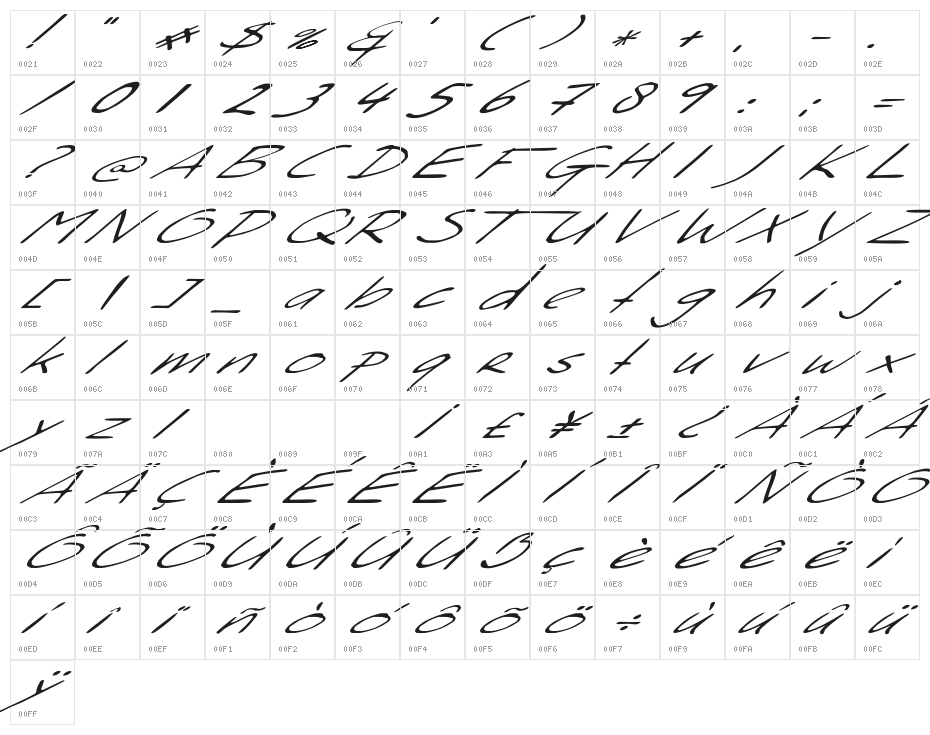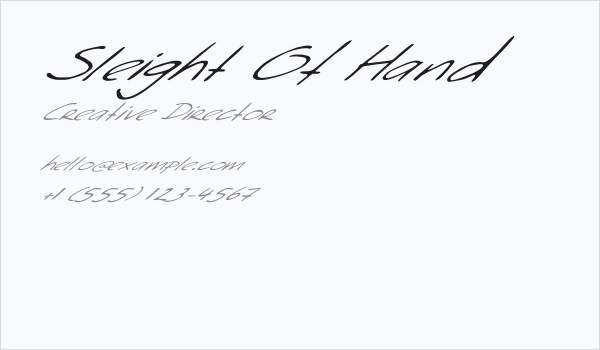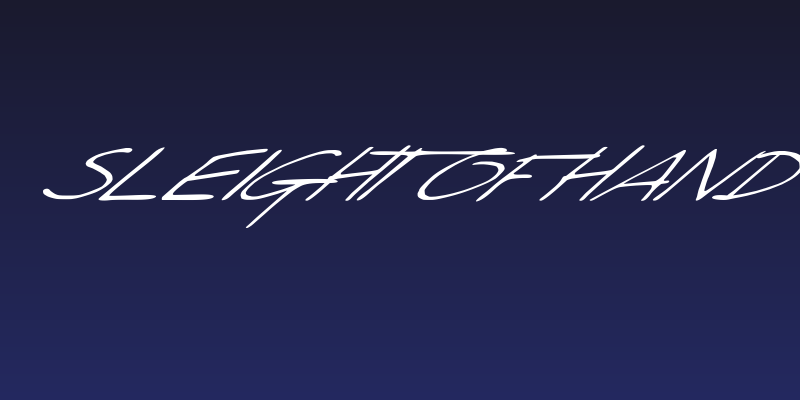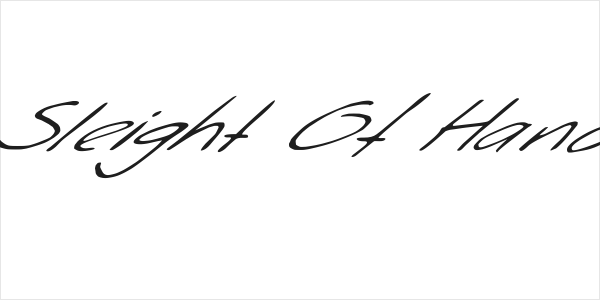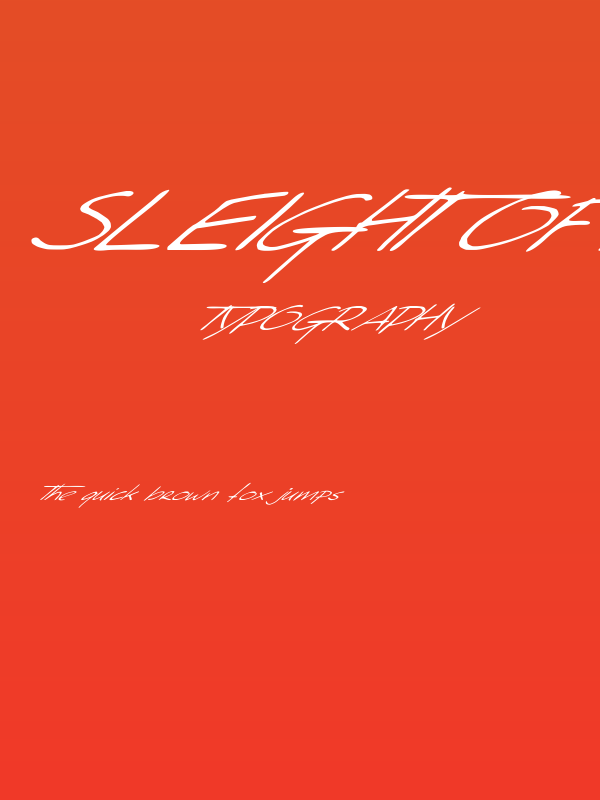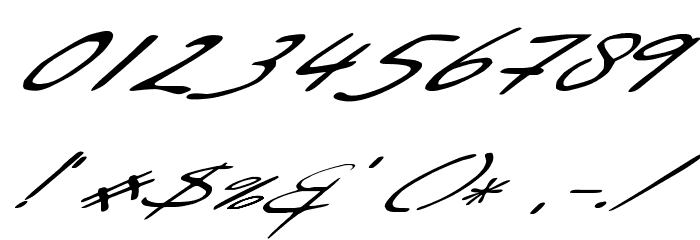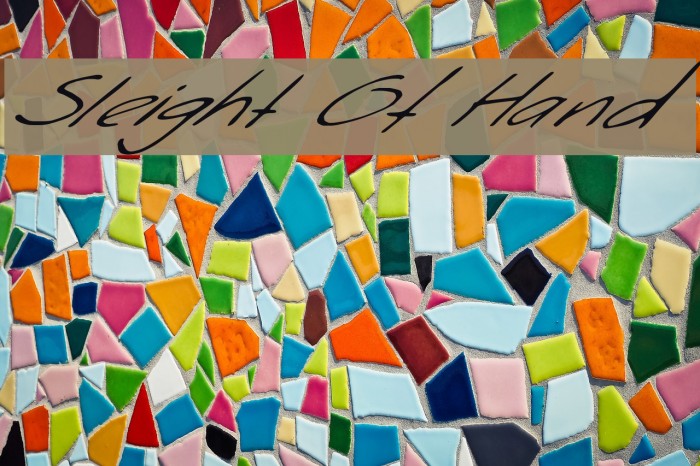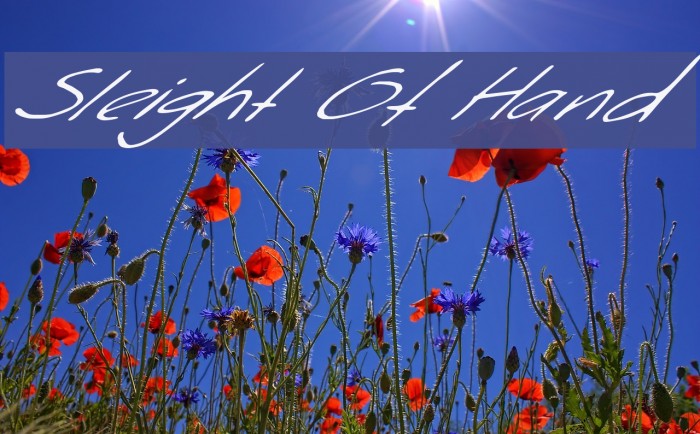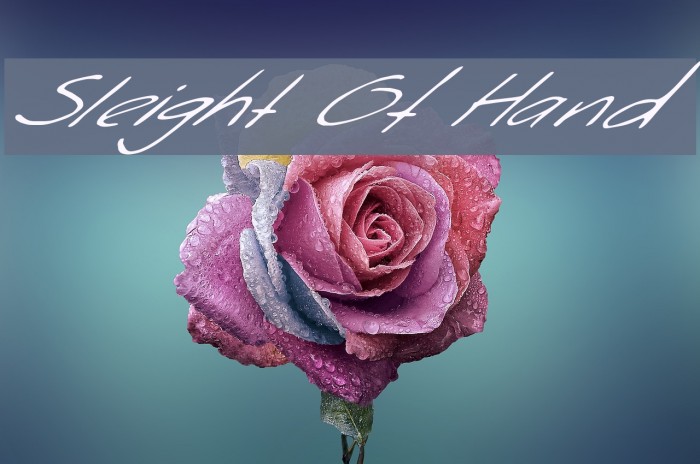
Sleight Of Hand Font
Sleight Of Hand Description
This font exudes a dynamic and energetic style, characterized by its slanted, cursive script that mimics the fluidity of handwriting. The strokes are sharp and angular, giving it a sense of movement and speed. Each character is distinct, with a playful yet sophisticated flair. The uppercase letters are bold and commanding, while the lowercase letters maintain a consistent flow, enhancing readability. The numbers and special characters are crafted with the same attention to detail, ensuring a cohesive look across all elements. This font is perfect for projects that require a touch of elegance and spontaneity.
SLEIGHT-OF-HAND UPPERCASE
SLEIGHT-OF-HAND LOWERCASE
SLEIGHT-OF-HAND OTHER CHARS